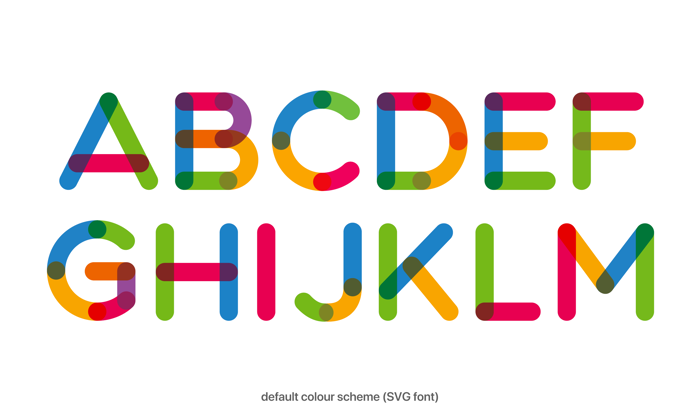
Multicolore Pro Font
The story of Multicolore dates back to 2012 when I got inspired by the Pentagram’s Michael Bierut work for Mohawk Paper and I thought – can I create something like this but in a form of a typeface? By that time technology didn’t allowed fonts to have more than one colour, so I basically saved everything as AI and EPS. And I gave it to the public – FREE for personal and commercial project.
People seemed to love it very much and it became my only Featured project on Behance. The good thing about it was that everyone could grab it, change the main colors and make something unique.
Until February 2019 the typeface was available only as vector outlines. Now I’m introducing the SVG OTF Font which allows you to write in Adobe CC 2018 products and above.